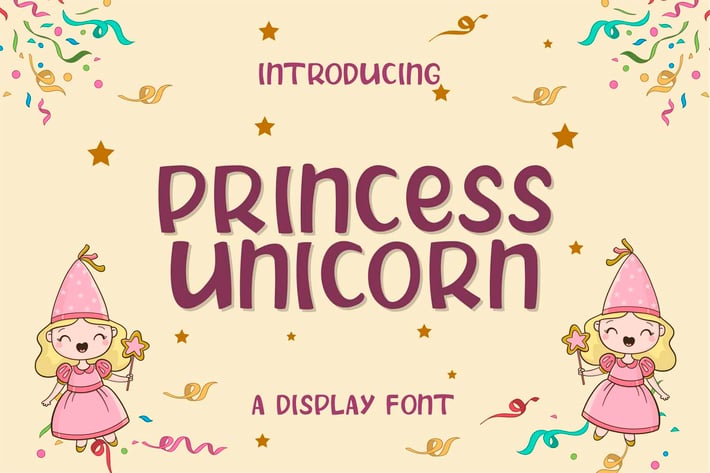
PRINCESS UNICORN Display Font
PRINCESS UNICORN is a handicraft font. PRINCESS UNICORN can be used for products such as handcraft, product packaging, quotes, product design, craftsmen, labels, photography, watermarks, logos & branding. Everything can be accessed using software that supports Opentype, such as Adobe Indesign, Adobe CS Illustrator, Adobe Photoshop CC, and Corel Draw.